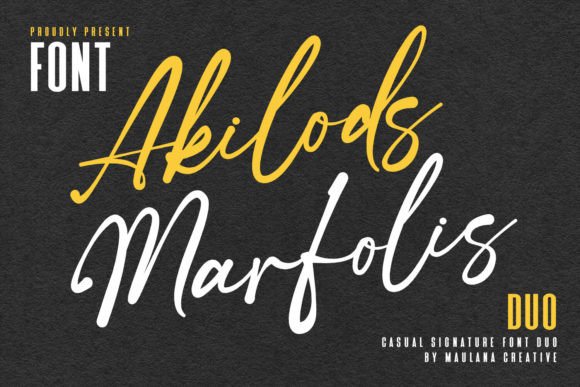
Akilods Marfolis Font: Elevate Your Designs with an Authentic Brush-Handcrafted Feel
In the realm of typography, few fonts manage to capture the essence of handcrafted authenticity. Akilods Marfolis Font is one such exceptional typeface that brings a unique, brush-handcrafted feel to your designs. This comprehensive article will delve into the features, applications, and benefits of using Akilods Marfolis in your creative projects.
What is Akilods Marfolis Font?
Akilods Marfolis is a distinctive font designed to give your designs a personal, handcrafted touch. It is characterized by its organic, brush-stroked appearance, which lends a sense of warmth and authenticity to any project. Whether you’re working on a logo, typography quotes, website headers, or branding materials, Akilods Marfolis offers a unique aesthetic that sets your work apart.
Key Features of Akilods Marfolis Font
Ligatures and Alternates
One of the standout features of Akilods Marfolis is its inclusion of ligatures and alternates. Ligatures allow for the combination of two or more letters into a single glyph, creating a more fluid and natural appearance. Alternates provide variations of letters and symbols, enabling you to add more diversity and creativity to your typography. These features make Akilods Marfolis highly versatile and adaptable to different design contexts.
Free Sans Serif Companion Font
Akilods Marfolis comes with a complimentary sans serif font, offering you even more flexibility in your design choices. This sans serif font can be used for body text, captions, or any other application where a clean, modern look is desired. The pairing of Akilods Marfolis with its sans serif counterpart allows for a harmonious contrast that can elevate the visual appeal of your designs.
Applications of Akilods Marfolis Font
Signature and Stationery
Akilods Marfolis is perfectly suited for creating personalized signatures and stationery. Its unique, handcrafted appearance adds a touch of elegance and sophistication, making it ideal for professional and personal correspondence.
Logo and Branding
When it comes to logo design and branding, Akilods Marfolis offers endless possibilities. Its distinctive style can help create a memorable brand identity that stands out in a crowded market. The font’s authentic feel resonates with audiences, fostering a deeper connection between your brand and its followers.
Typography Quotes
Akilods Marfolis brings a new level of expressiveness to typography quotes. Its brush-handcrafted texture adds an emotional and personal touch, making quotes more impactful and engaging. Whether you’re designing for social media, print, or digital platforms, Akilods Marfolis can help your quotes leave a lasting impression.
Website Headers
Website headers are crucial for capturing visitors’ attention and setting the tone for your site. Akilods Marfolis, with its unique aesthetic, can help create visually appealing headers that draw users in. Its readability and style ensure that your website not only looks great but also communicates effectively.
Benefits of Using Akilods Marfolis Font
Unique Aesthetic
The most obvious benefit of Akilods Marfolis is its ability to add a unique aesthetic to your designs. In a world where generic fonts are common, Akilods Marfolis offers a refreshing alternative that can make your work stand out.
Versatility
Akilods Marfolis is incredibly versatile, thanks to its ligatures, alternates, and companion sans serif font. This versatility allows you to use the font across a wide range of projects, from elegant stationery to dynamic website headers.
Authenticity
The brush-handcrafted feel of Akilods Marfolis lends an air of authenticity to your designs. This authenticity can help build trust and rapport with your audience, whether you’re designing for a brand, a client, or a personal project.
Akilods Marfolis Font is a powerful tool for designers looking to infuse their work with a unique, handcrafted feel. Its distinctive style, combined with its versatility and the included sans serif companion font, make it an excellent choice for a wide range of applications. Whether you’re working on logos, typography quotes, website headers, or branding materials, Akilods Marfolis offers the perfect blend of authenticity and aesthetic appeal. By incorporating Akilods Marfolis into your design toolkit, you can create more engaging, memorable, and impactful designs that resonate with your audience.